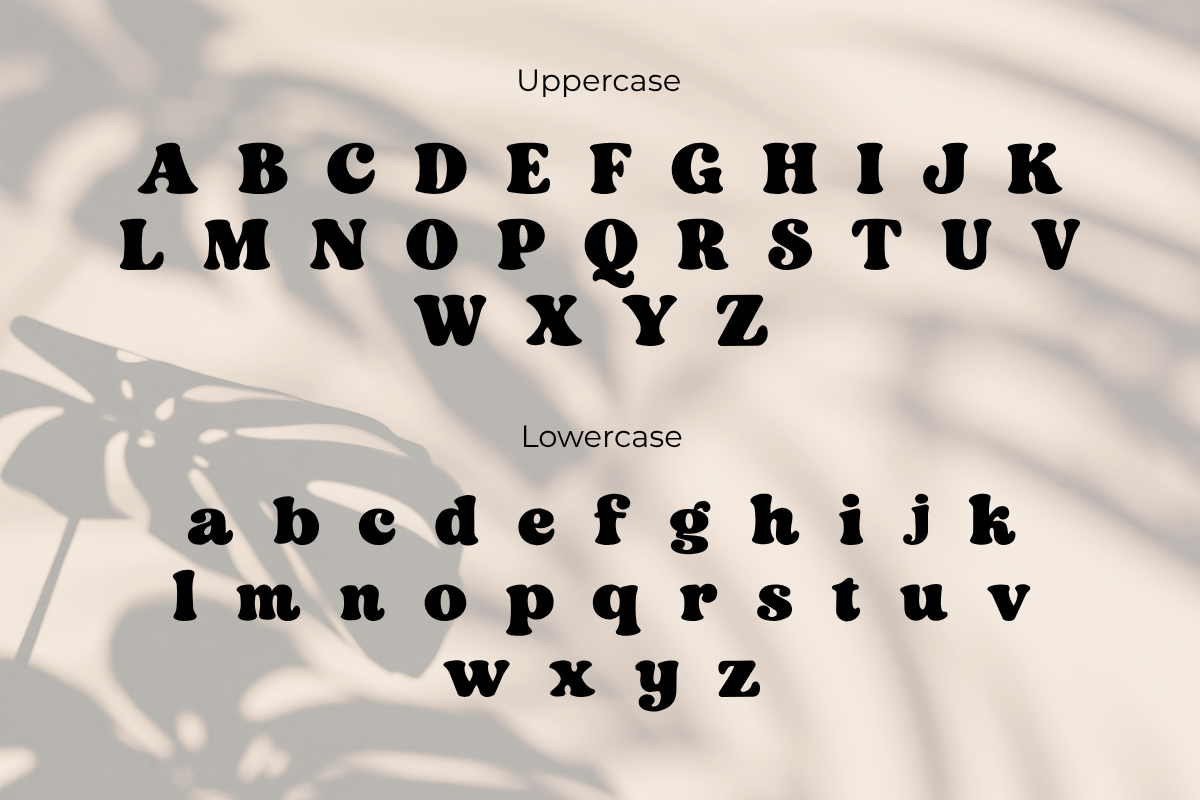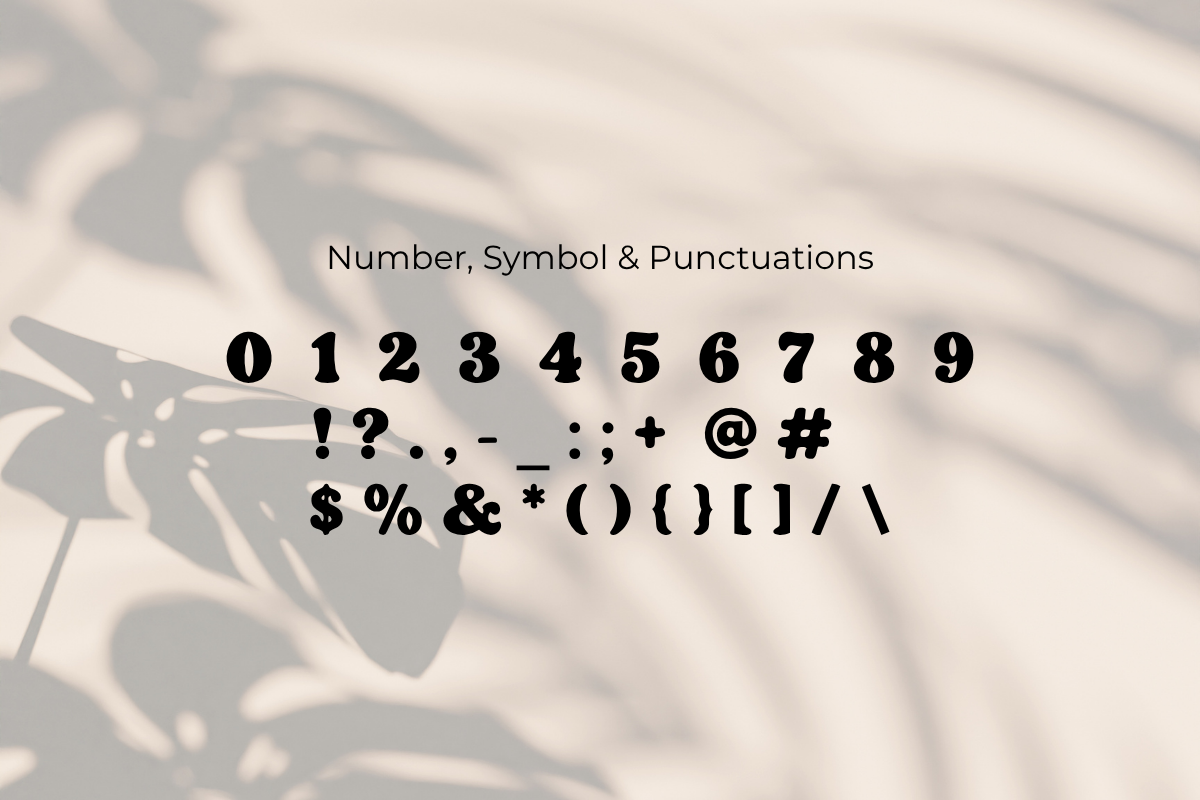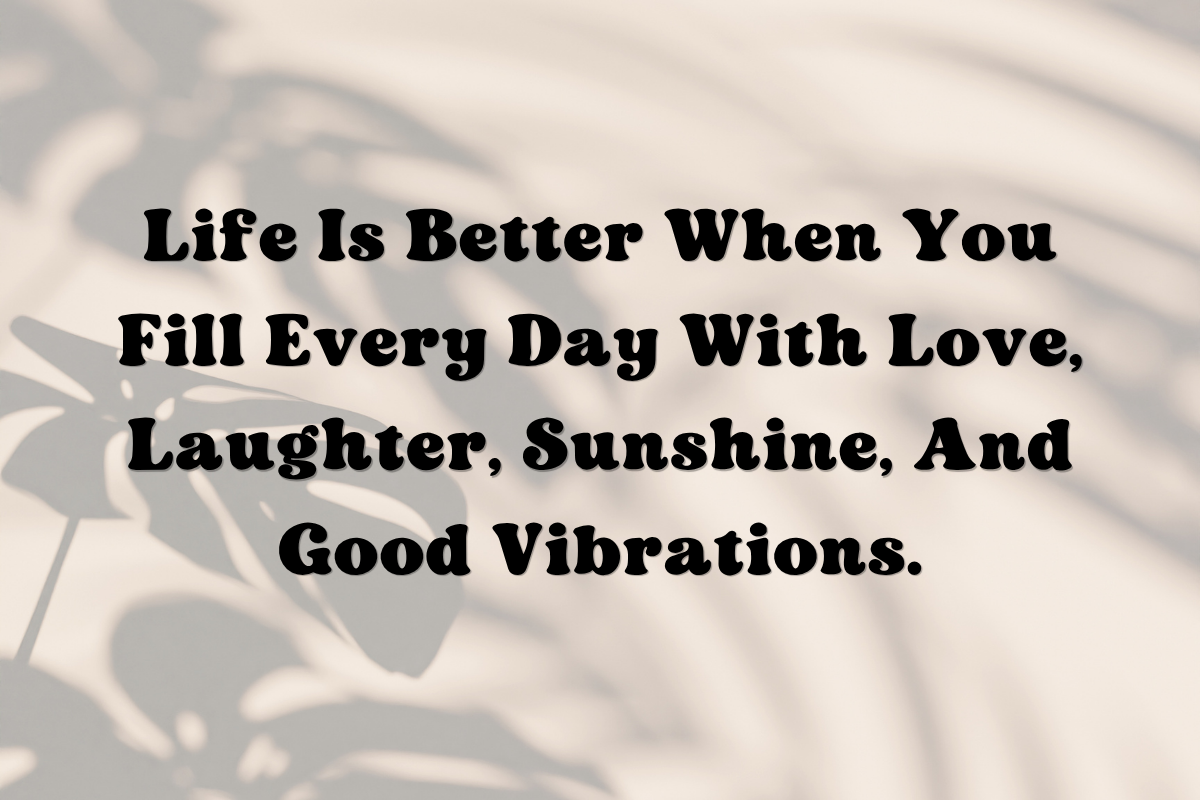
Groovy Bloom – Bold Retro Groovy
Bring a bold dose of retro style and groovy personality to your designs with Groovy Bloom!
This eye-catching display font combines chunky letterforms, smooth rounded curves, playful shapes, and a nostalgic 70s-inspired aesthetic. Its strong and expressive appearance makes it perfect for attention-grabbing headlines and creative display typography.
Whether you're designing a vintage-inspired logo, trendy apparel, a colorful poster, or fun social media artwork, Groovy Bloom adds a unique and energetic touch to your projects.
Uppercase A–Z
Lowercase a–z
Numbers 0–9
Punctuation & Symbols
Bold & chunky letterforms
Rounded, smooth curves
Retro-inspired design
Playful display style
Eye-catching typography